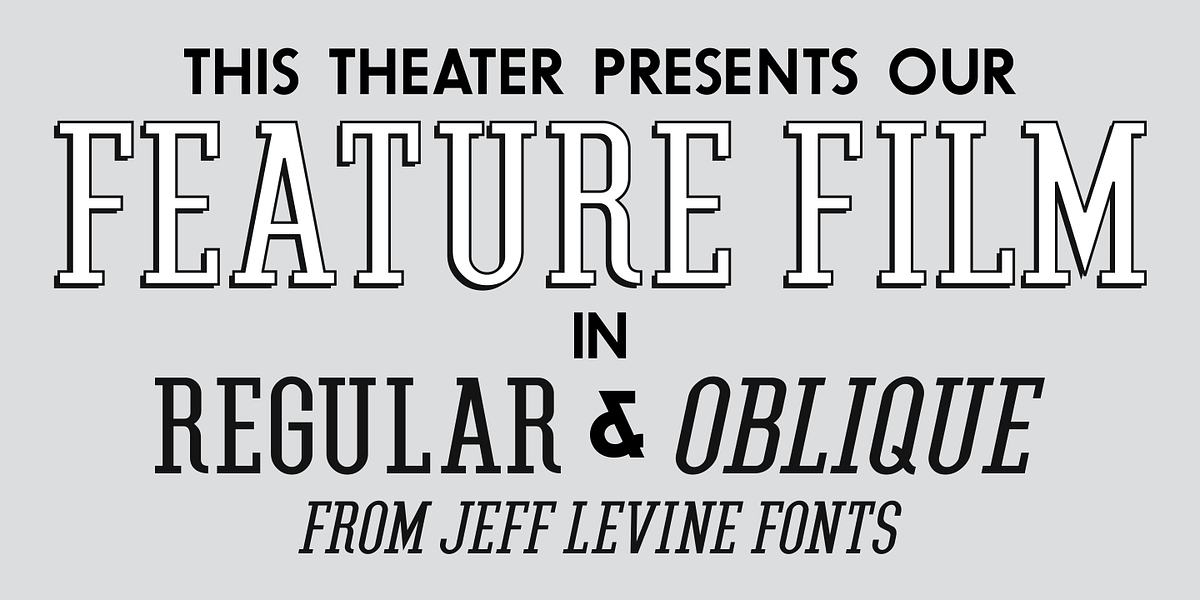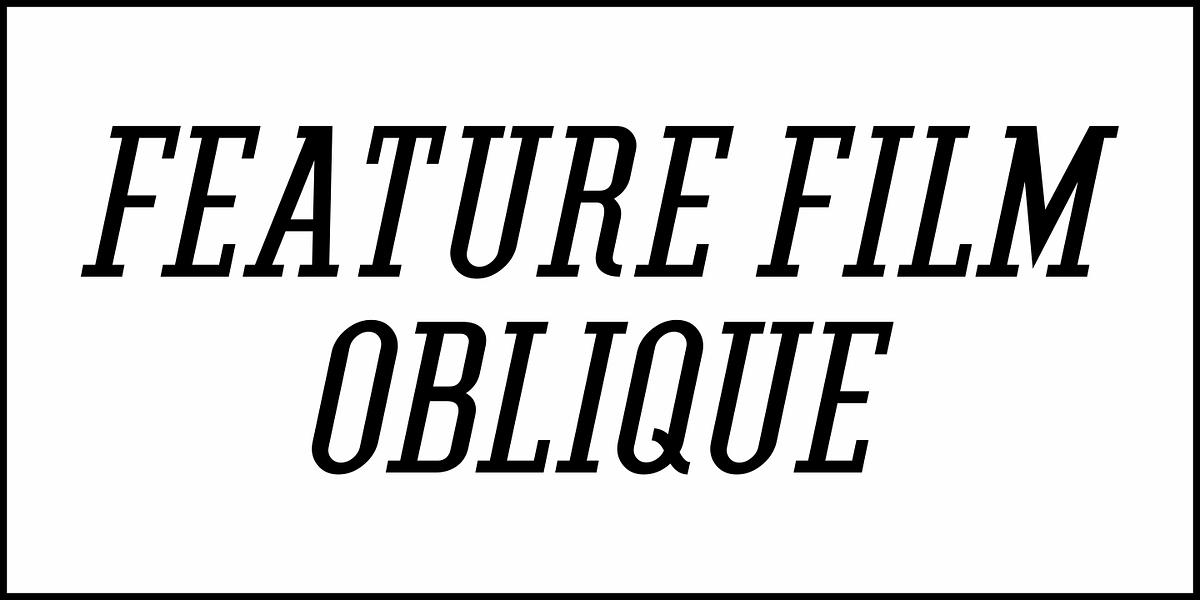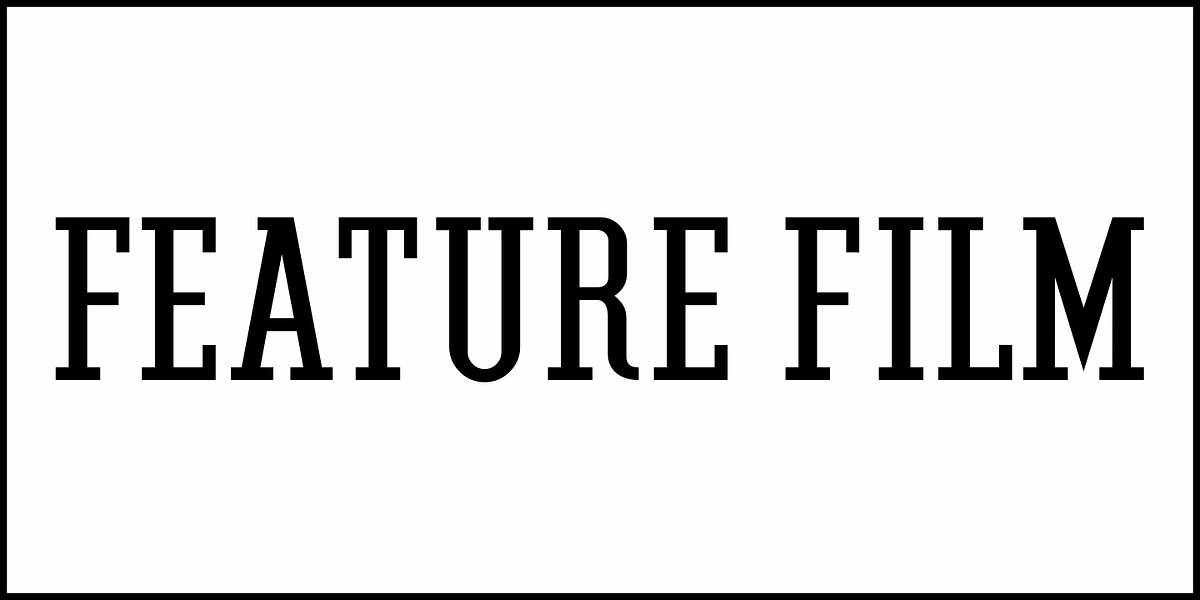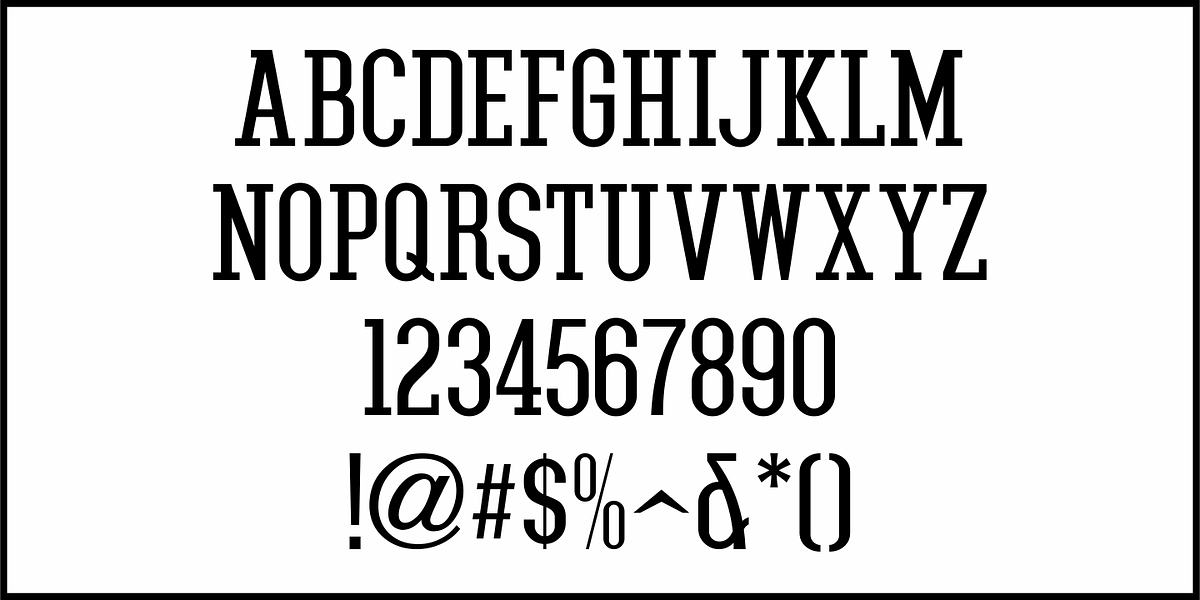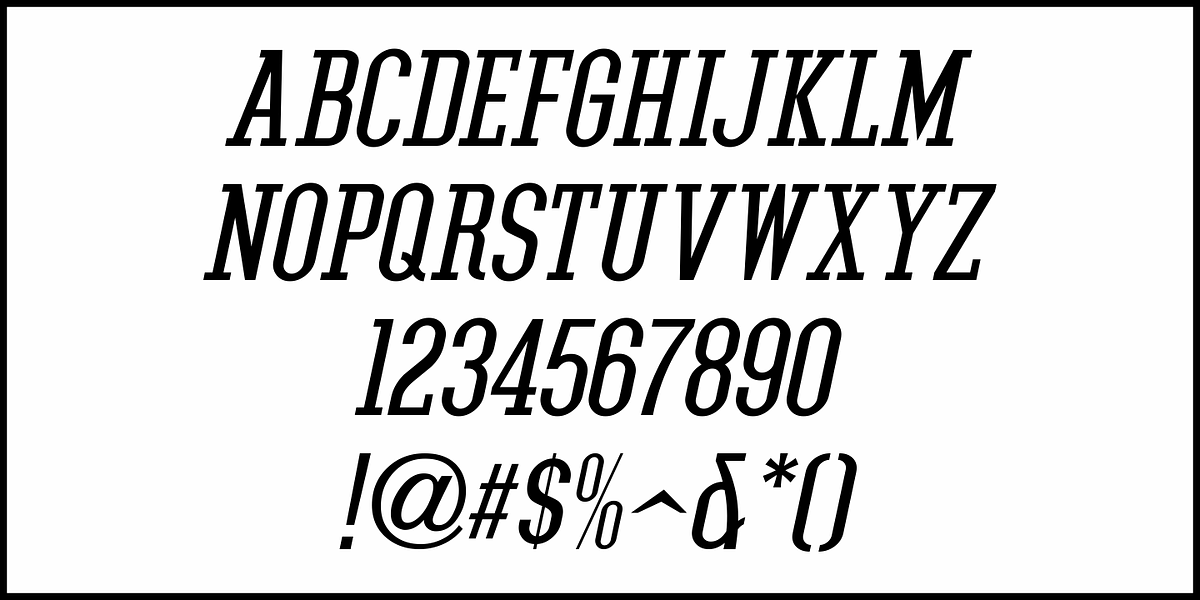
Feature Film JNL
Ad copy found within the pages of the January 25, 1936 issue of Motion Picture Herald for the film "Magnificent Obsession" was rendered in a condensed, slab serif lettering style similar in nature to the popular type designs Memphis, Karnak, Beton and Stymie.
This has been redrawn digitally as Feature Film JNL, and is available in both regular and oblique versions.